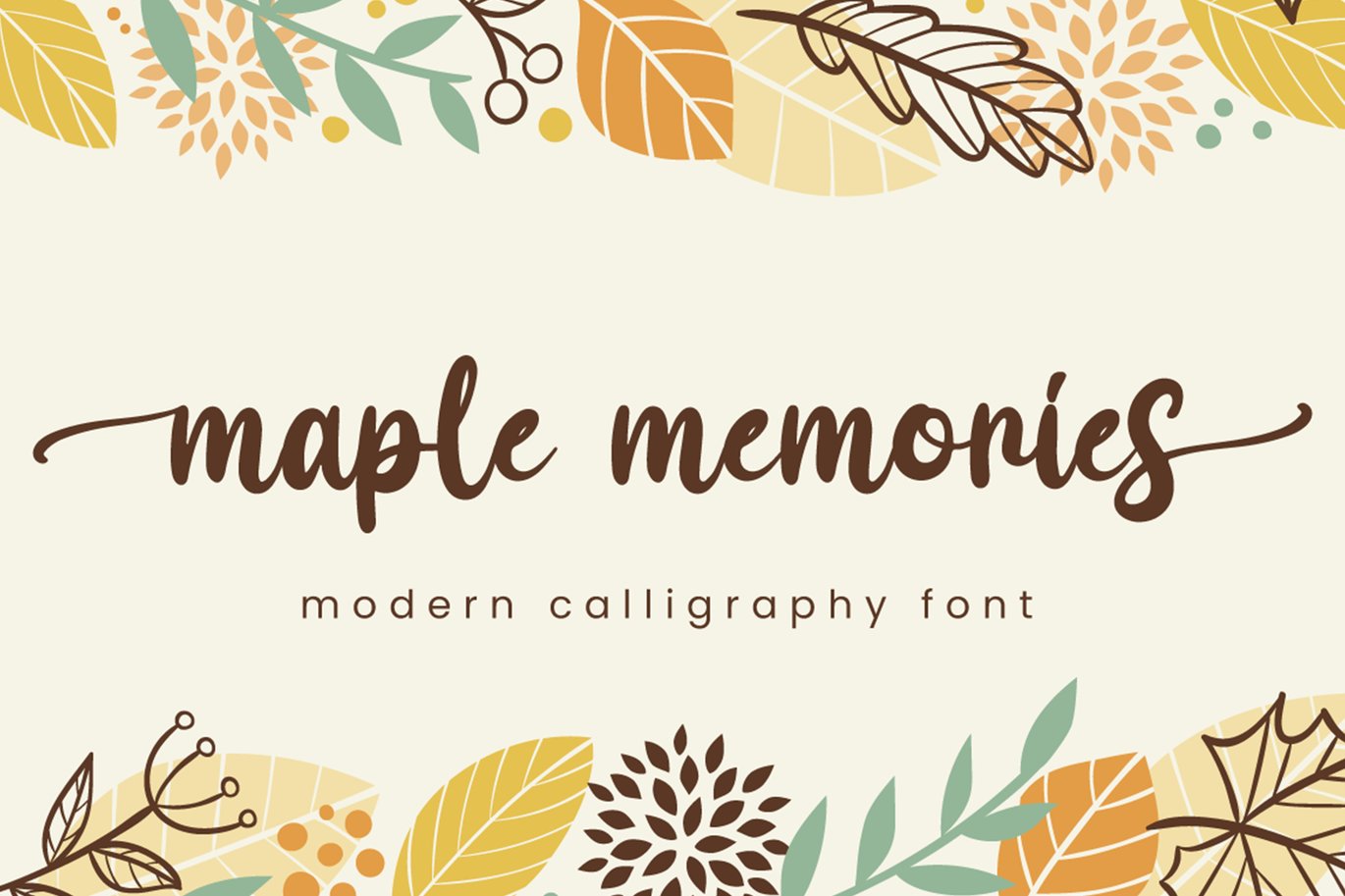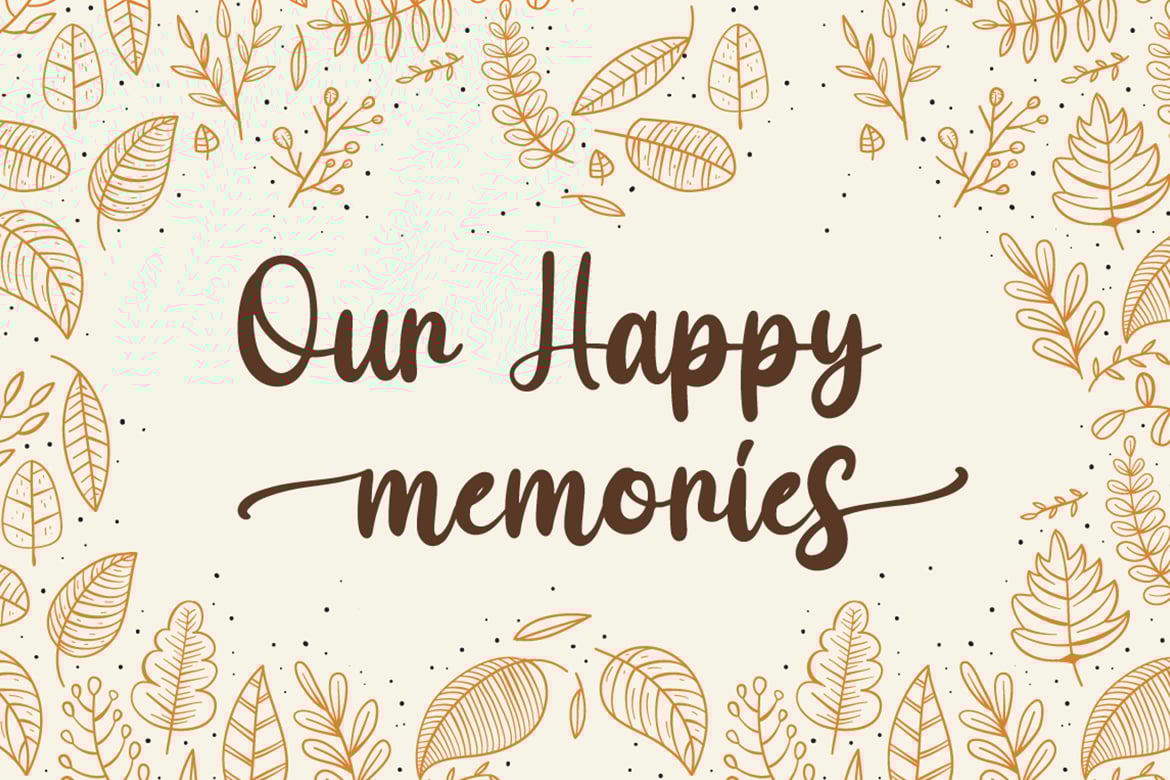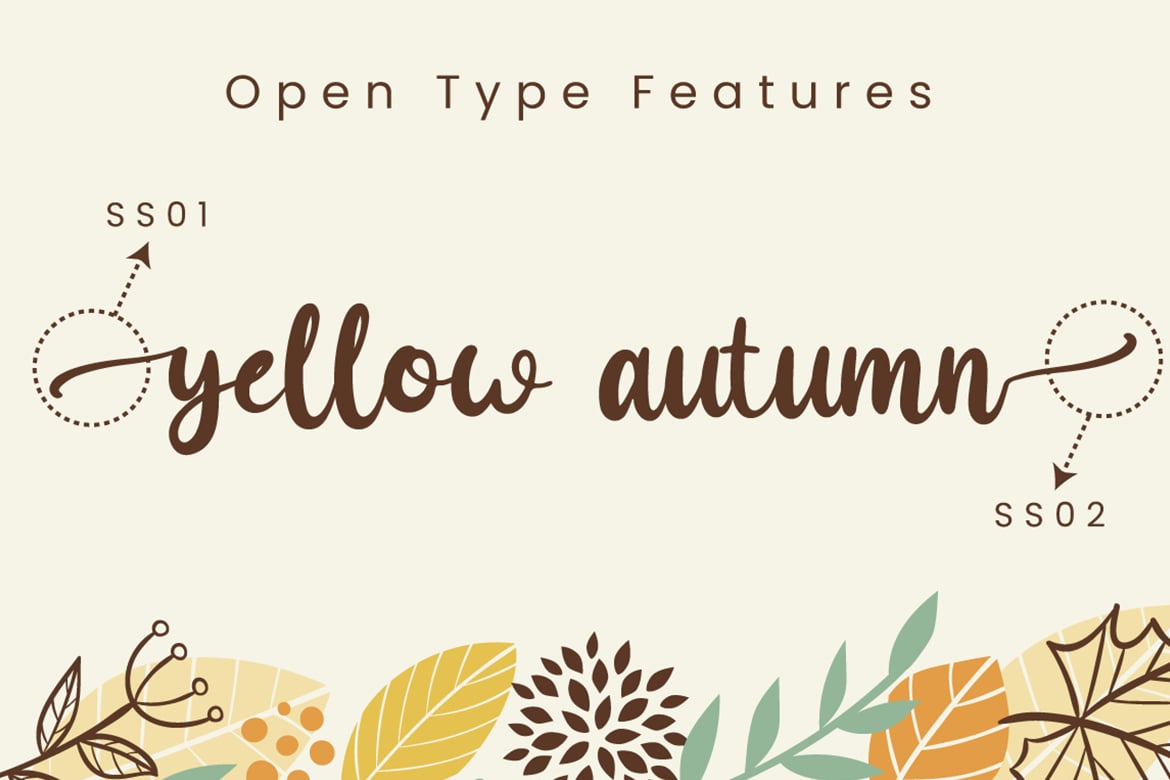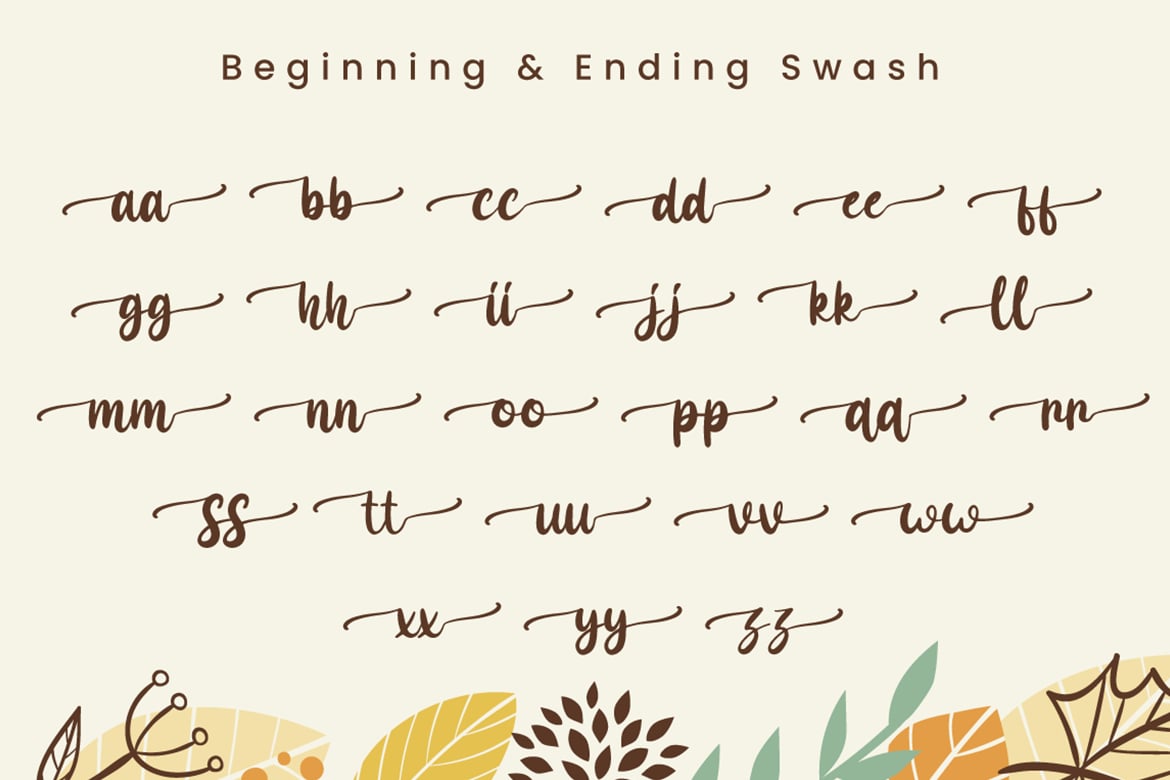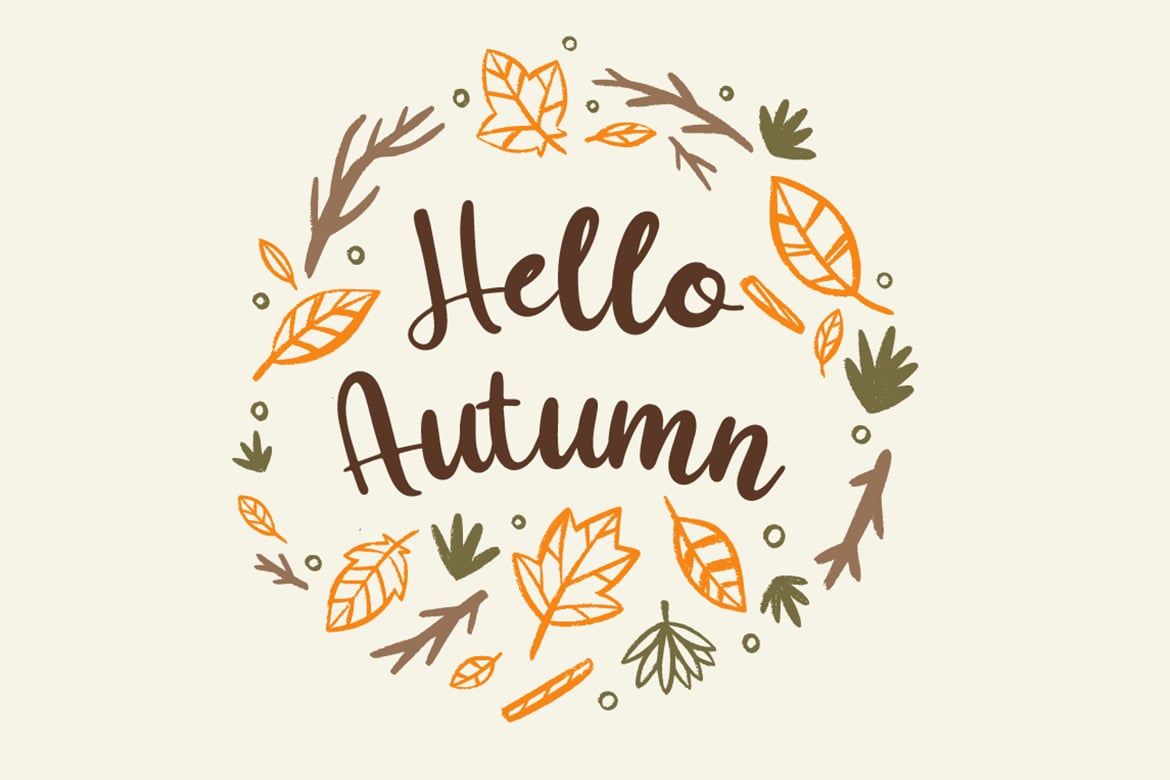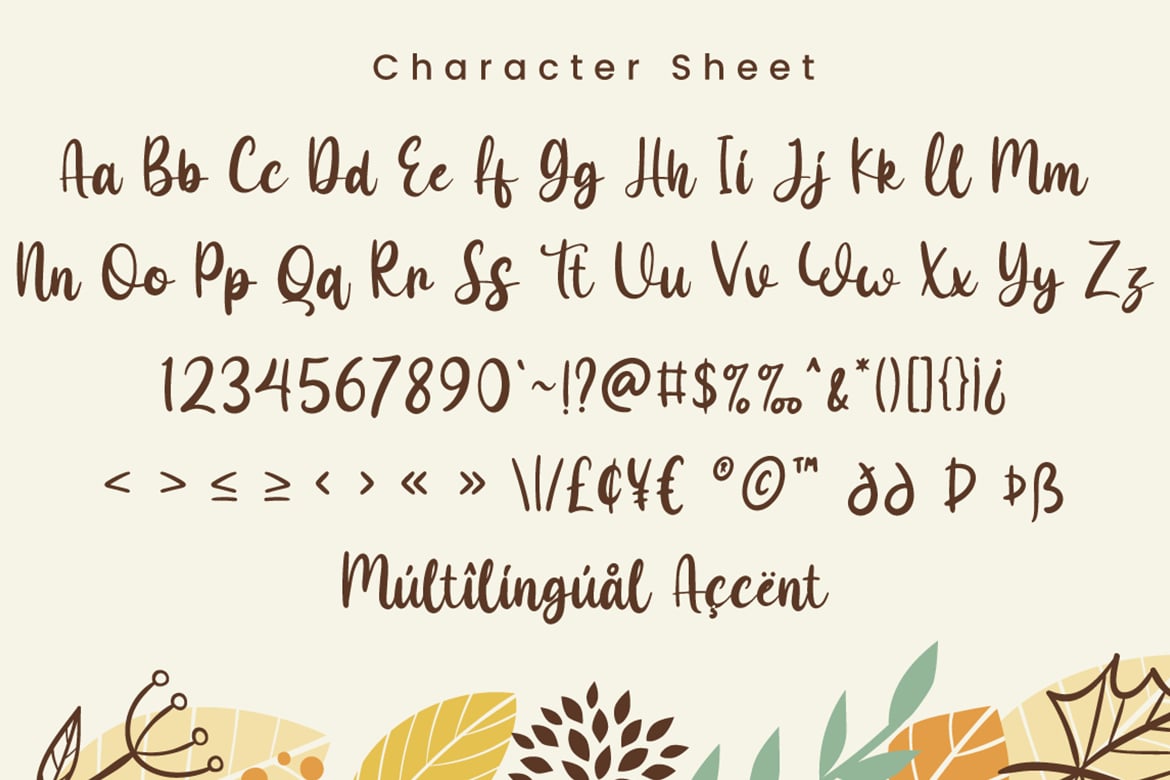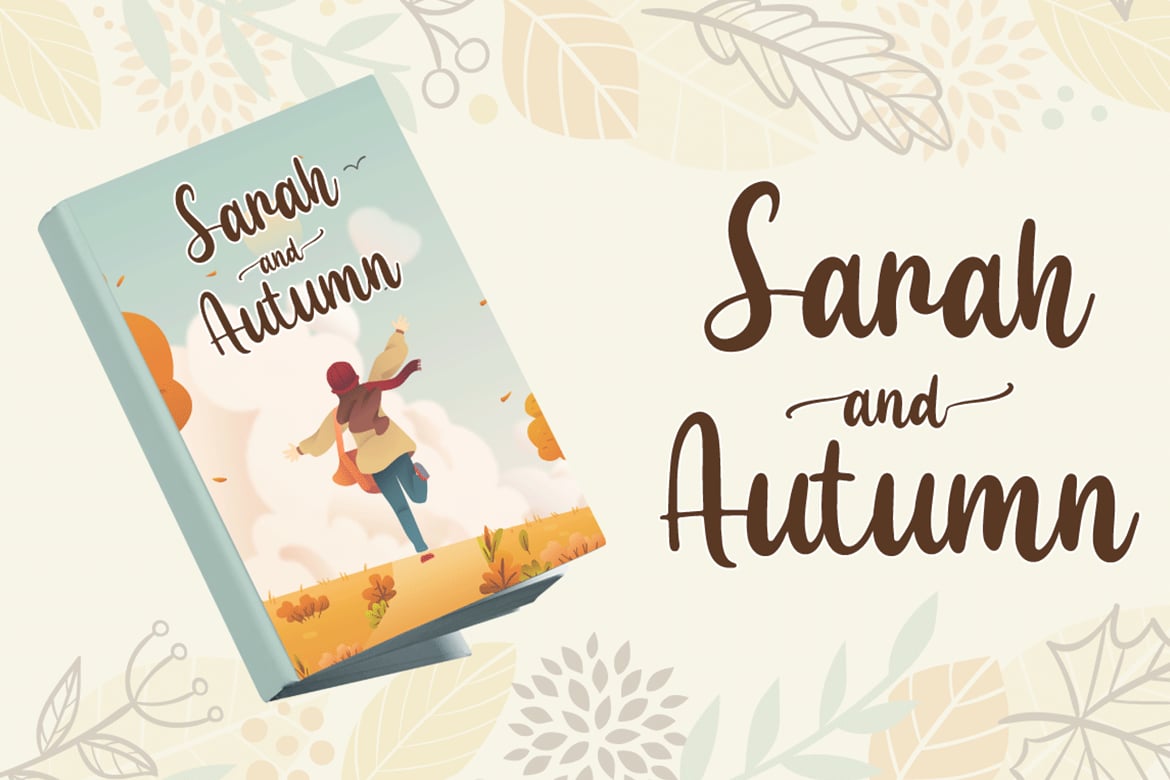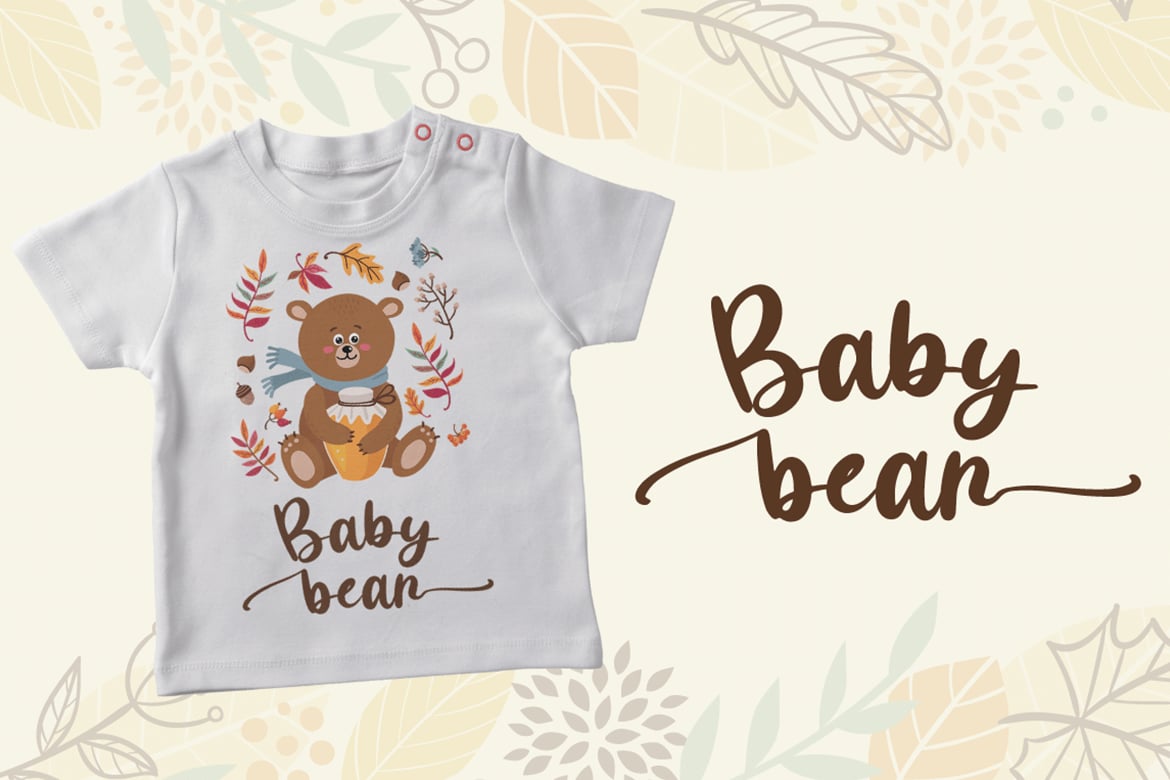
Maple Memories – Script Font
Maple Memories is a delicate and incredibly handwritten font. Fall in love with its incredibly versatile style and use it to create spectacular designs!
- Beginning & Ending Swash
- Multilingual Support (Afrikaans, Albanian, Catalan, Danish, Dutch, English, Estonian, Finnish, French, German, Icelandic, Italian, Norwegian, Portugese, Spanisch, Swedish, Zulu)